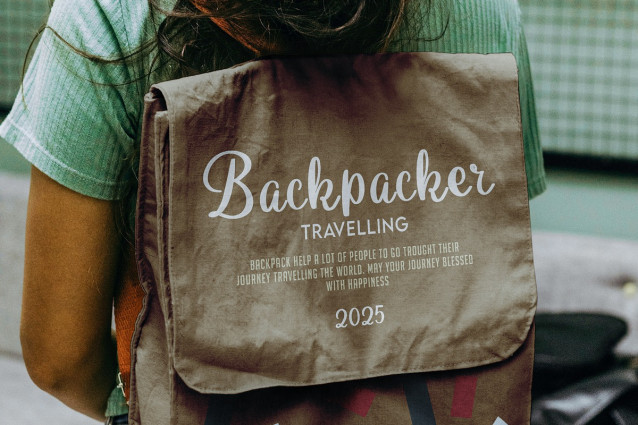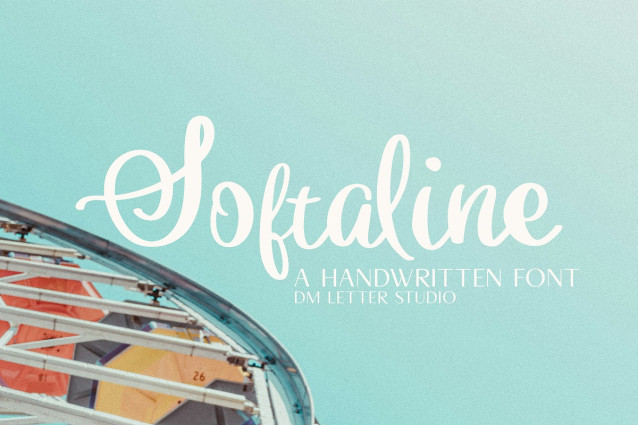
Softaline Script Font
Softaline Script Font is a handwriting font with a soft, flowing look that feels calm, personal, and polished. The strokes are smooth and natural, so it reads like a real handwritten note, not a stiff script. Because the letterforms stay open and balanced, Softaline remains clear at small sizes while still looking expressive in headlines. Use it for branding quotes, logo accents, product cards, social posts, planners, invitations, and packaging. As a result, your designs feel warm and premium without looking overdesigned.
Fast layouts with the Softaline font
Start with a short phrase in Softaline and keep the message simple. After that, add supporting text in a clean sans for details like dates, pricing, or product info. Because Softaline looks best with breathing room, increase line spacing slightly and avoid tight stacking. In addition, combine it with minimal icons like hearts, sparkles, or thin botanical lines to keep the focus on the handwriting. Finally, save palette pairs like black & cream, blush & cocoa, or sage & ivory to repeat across your product line.